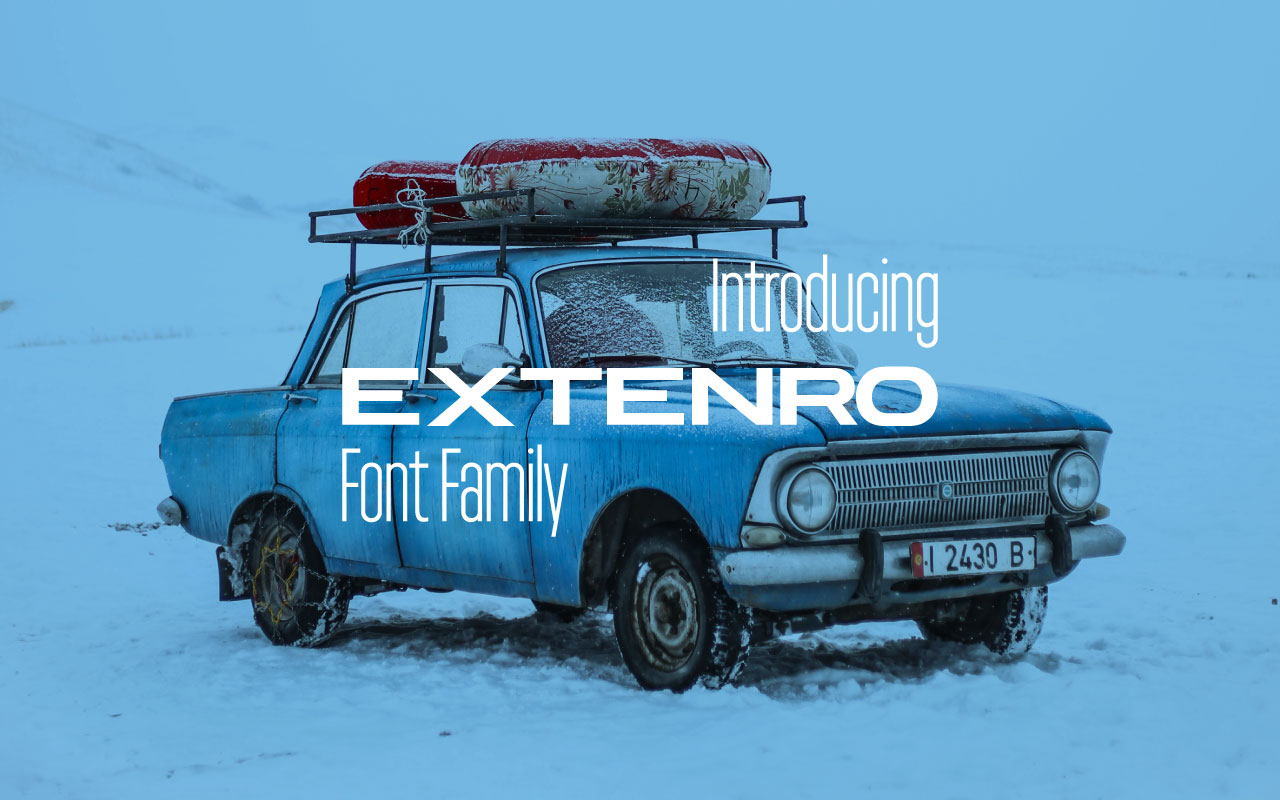
Extenro Font Family
Extenro is a custom sans serif display typeface with a fully extended body. Past, present, and future.
Extenro features uppercase, lowercase, numerals & punctuation. More characters will be added as the font gets traction and updates.